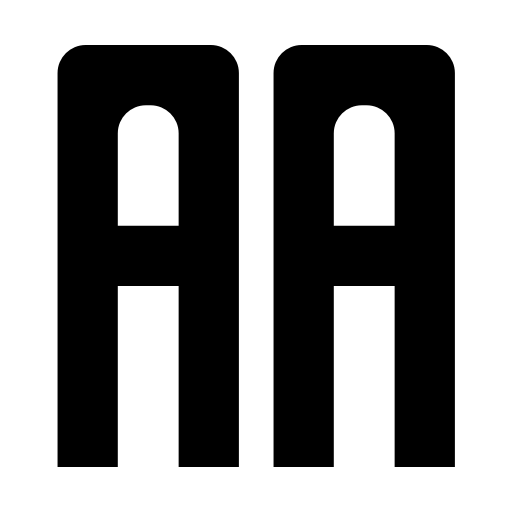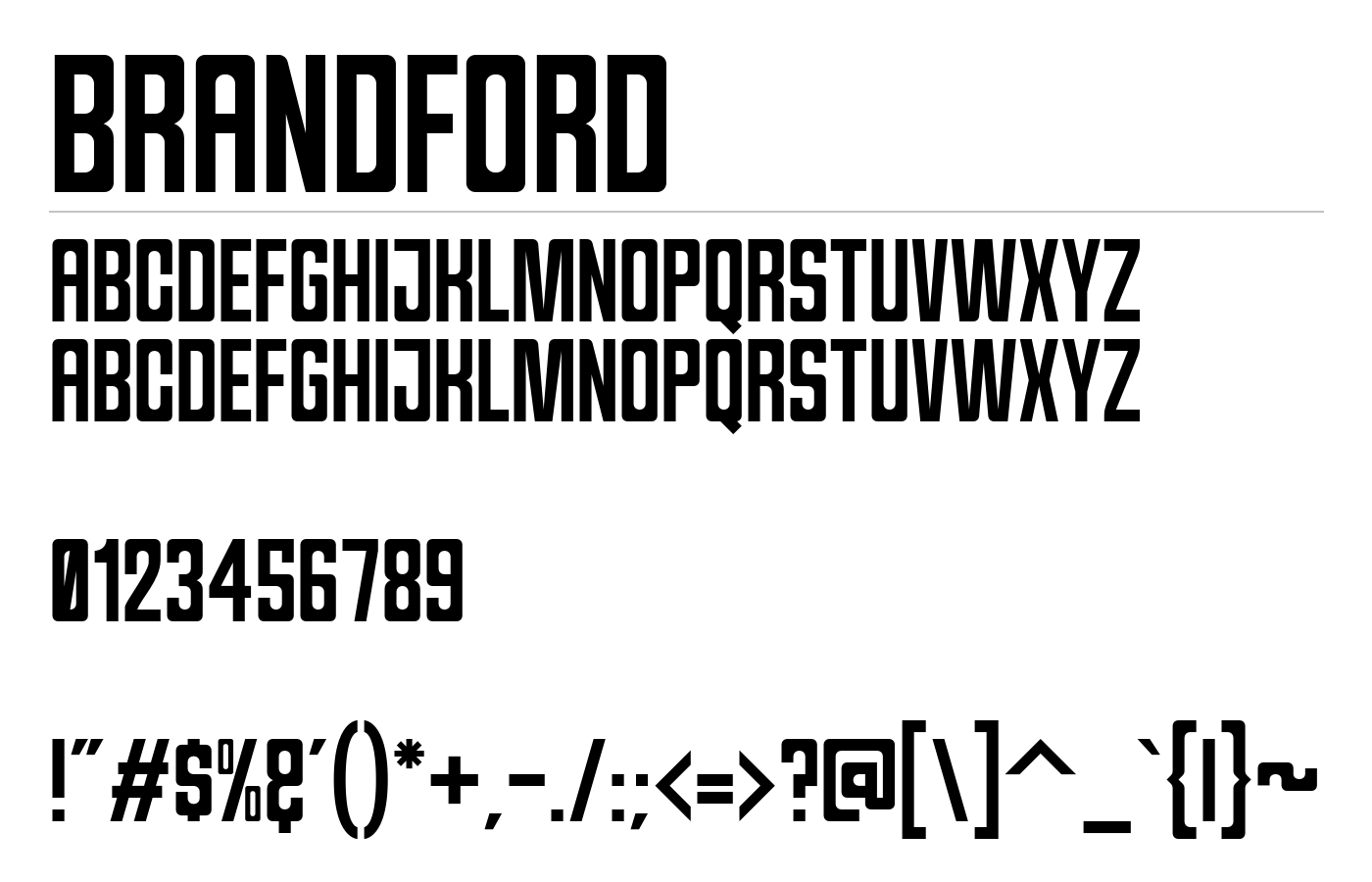
Brandford is a bold, condensed sans serif typeface with a strong, modern presence and a slightly squared, geometric style. Its tall, tightly spaced letterforms make it ideal for impactful headlines, logos, and branding that require a confident, urban, and contemporary feel. This font works well for designs seeking a sleek, assertive look with excellent readability at large sizes.
Brandford Font
About Brandford Font
| Font family | Brandford Font |
| Designer | Dida Ahluddin |